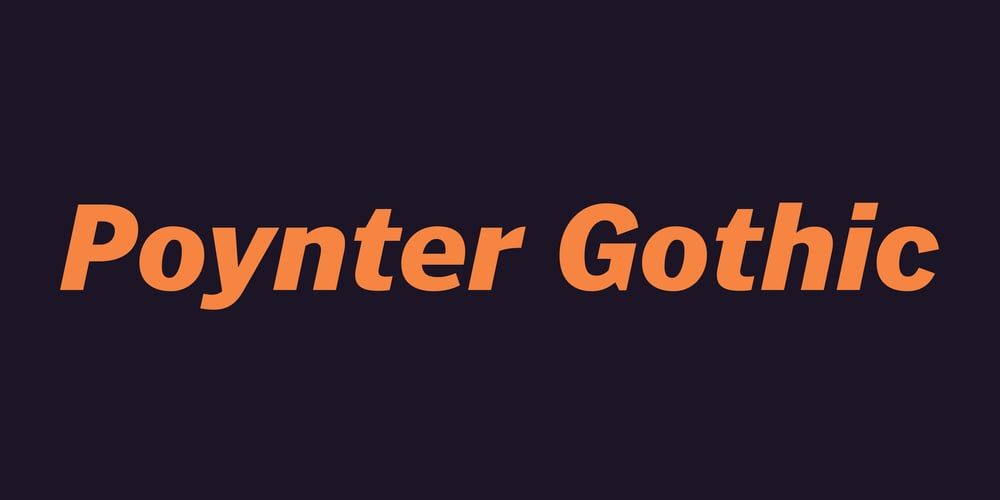
Poynter Gothic Font Family was designed by Tobias Frere-Jones, Morris Fuller Benton and published by Font Bureau. Poynter Gothic contains 16 styles and family package options. Morris Fuller Benton’s drawings at the Smithsonian show a creative concern for effects of scale on typeface design. Tobias Frere-Jones began with 4pt ATF Franklin Gothic drawings, modifying proportions to mix with Poynter Oldstyle and Benton Gothic, and adjusting ends of the curved strokes of C G S a c e r s to suit news printing conditions. Poynter Gothic Text excels as subheads used with Poynter Oldstyle Text; FB 1997–99